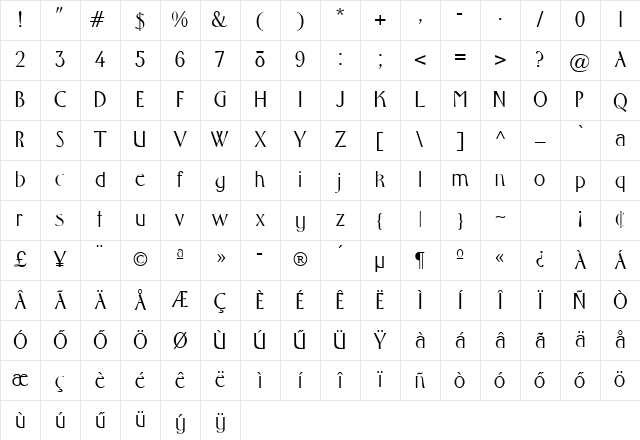
H_Middle East Regular Free Font
H_Middle East Regular
Design Context for H_Middle East
H_Middle East is a composed and adaptable typeface that performs quietly and consistently across a wide range of design contexts.